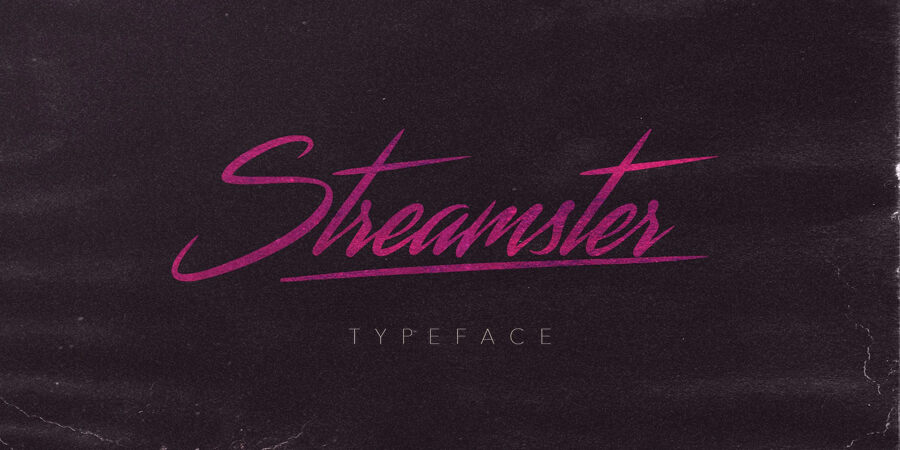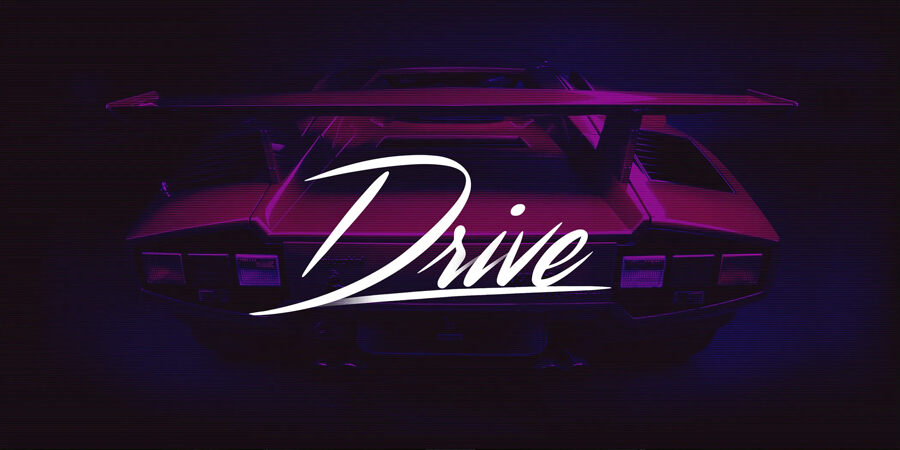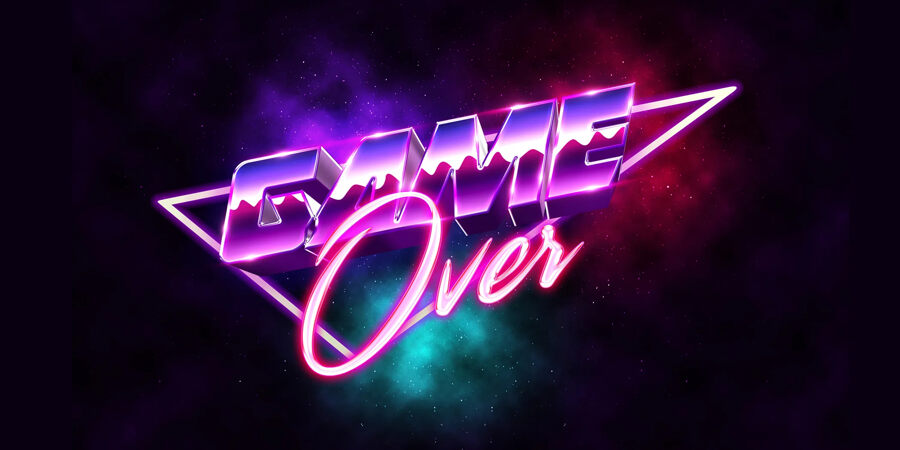
Streamster Font
Streamster is a bold retro script typeface inspired by 1980s neon, nightlife, and cinematic aesthetics. Its sweeping strokes, energetic slant, and hand-lettered character make it ideal for logos, posters, album covers, apparel, advertising, and automotive designs. With 182 characters, Streamster delivers a stylish, nostalgic personality that feels fast, confident, and unmistakably vintage.
Designed by: Youssef Habchi